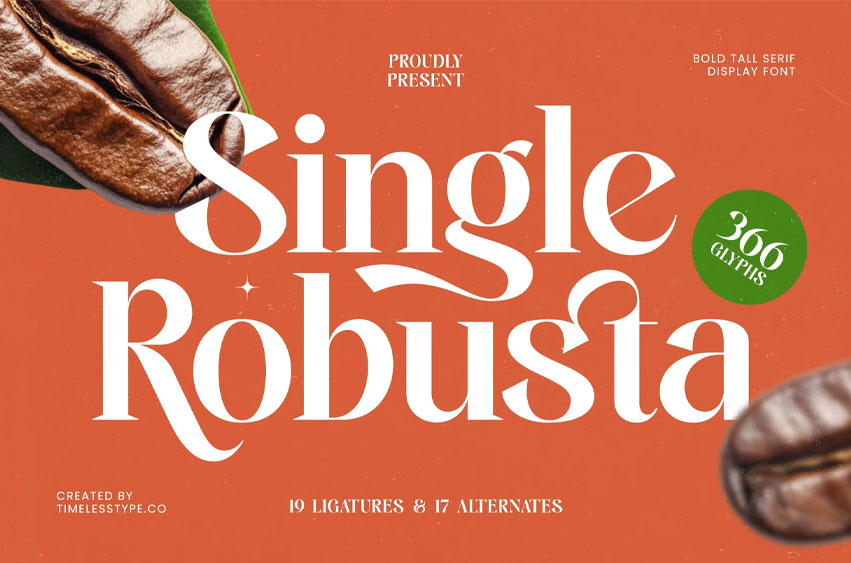
Single Robusta Font
Single Robusta Font is a bold, tall serif display font designed with striking curves, smooth contrast, and refined elegance reminiscent of premium coffee branding. Its sharp vertical structure blends beautifully with flowing swashes, making every word look rich, confident, and full of character.
With 19 ligatures and 17 stylistic alternates, Single Robusta gives designers the freedom to create expressive logotypes, elegant packaging, bold headlines, café branding, posters, menus, editorial layouts, and boutique-style visuals.
Perfect for projects that demand warmth, luxury, and modern craftsmanship, this typeface delivers a distinctive charm that feels handcrafted yet polished.